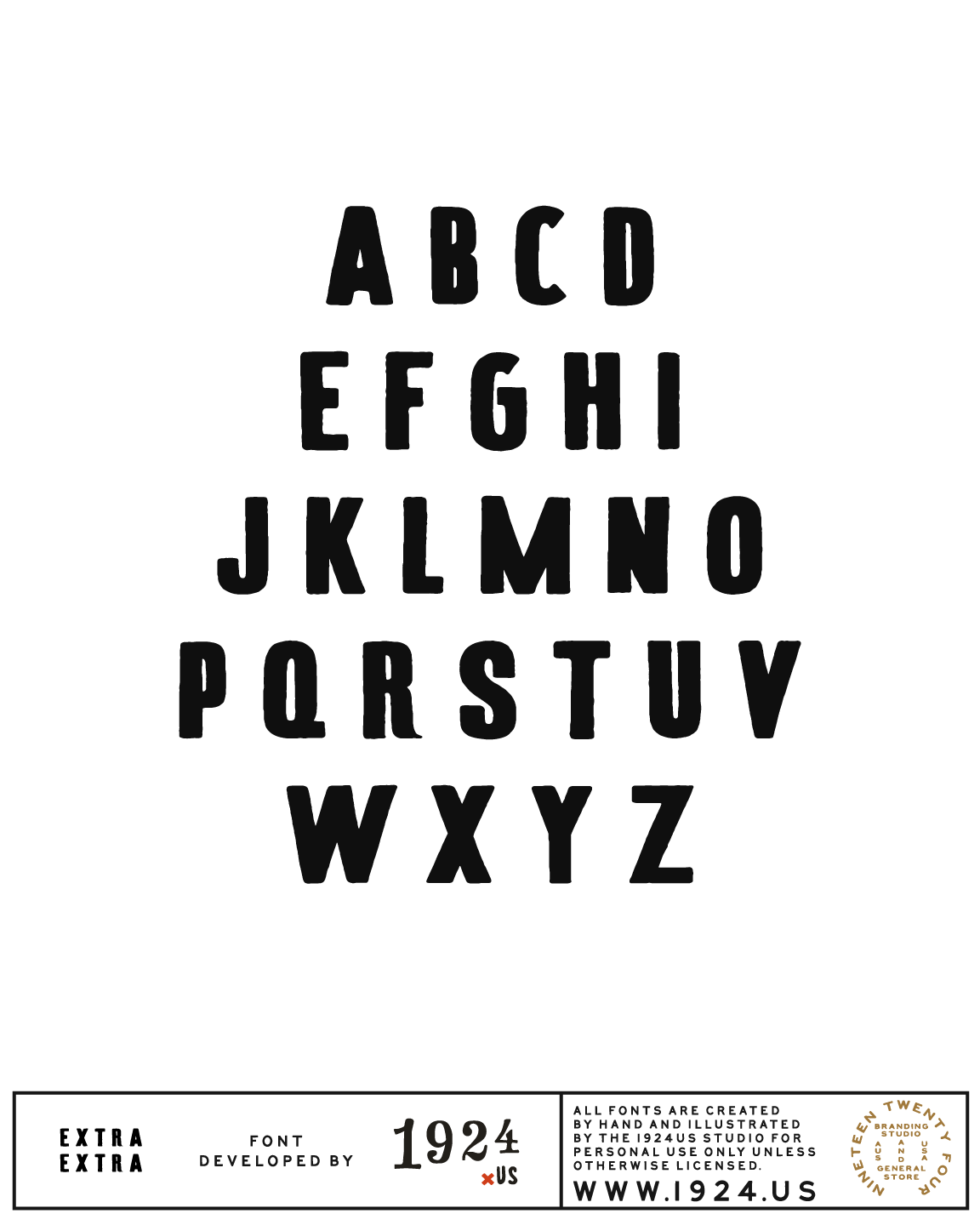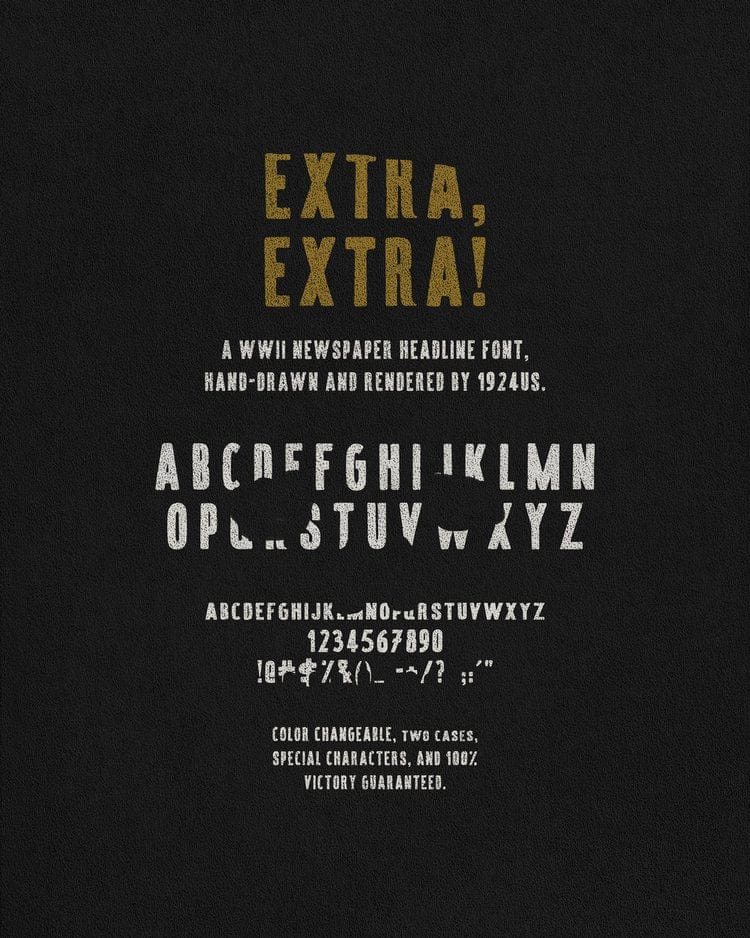
Extra Extra! Font by 1924us
The Extra, Extra! Font is inspired by antique newspapers, mostly originating from our collection of WWI and WWII newspapers which we have amassed over a period of ten years. The headlines are inspired by real events that took place during WWII, and the typeface was designed to reflect the feeling of large block lead type, meant initially for printing presses. This font is 100% user friendly, color changeable with special characters and two cases. Thank you!